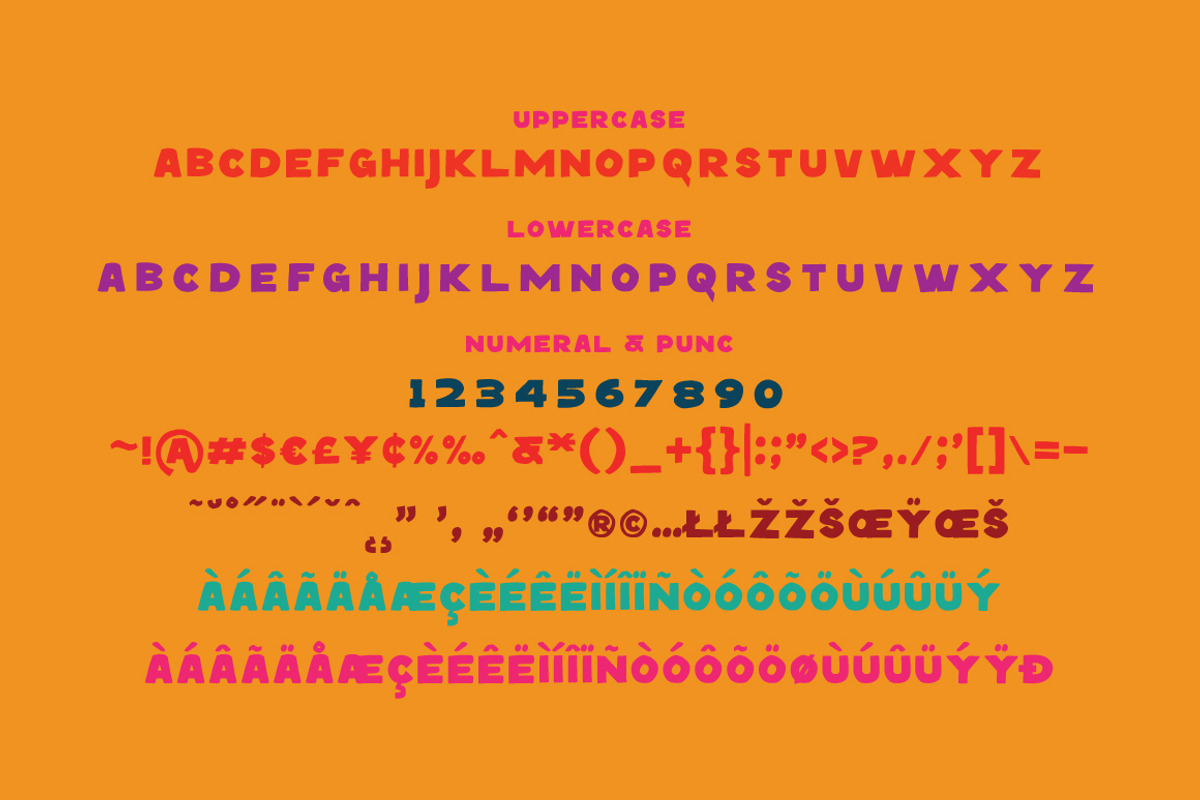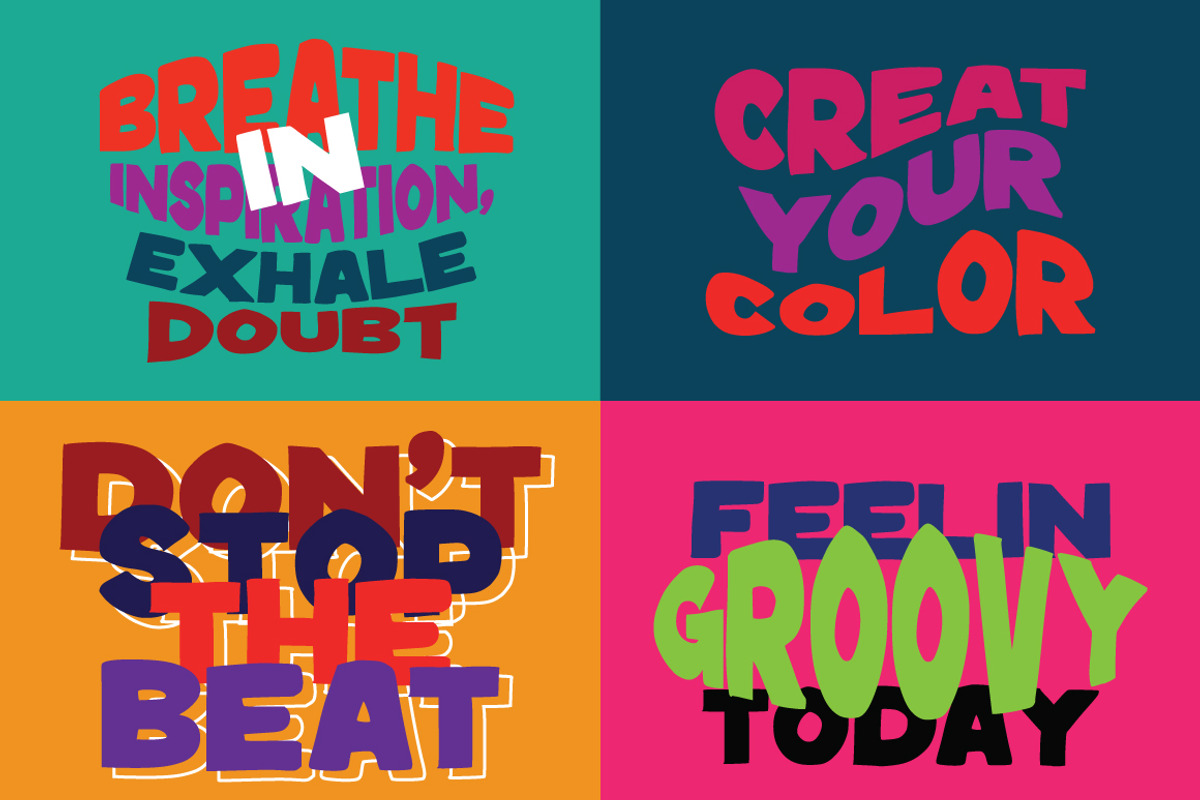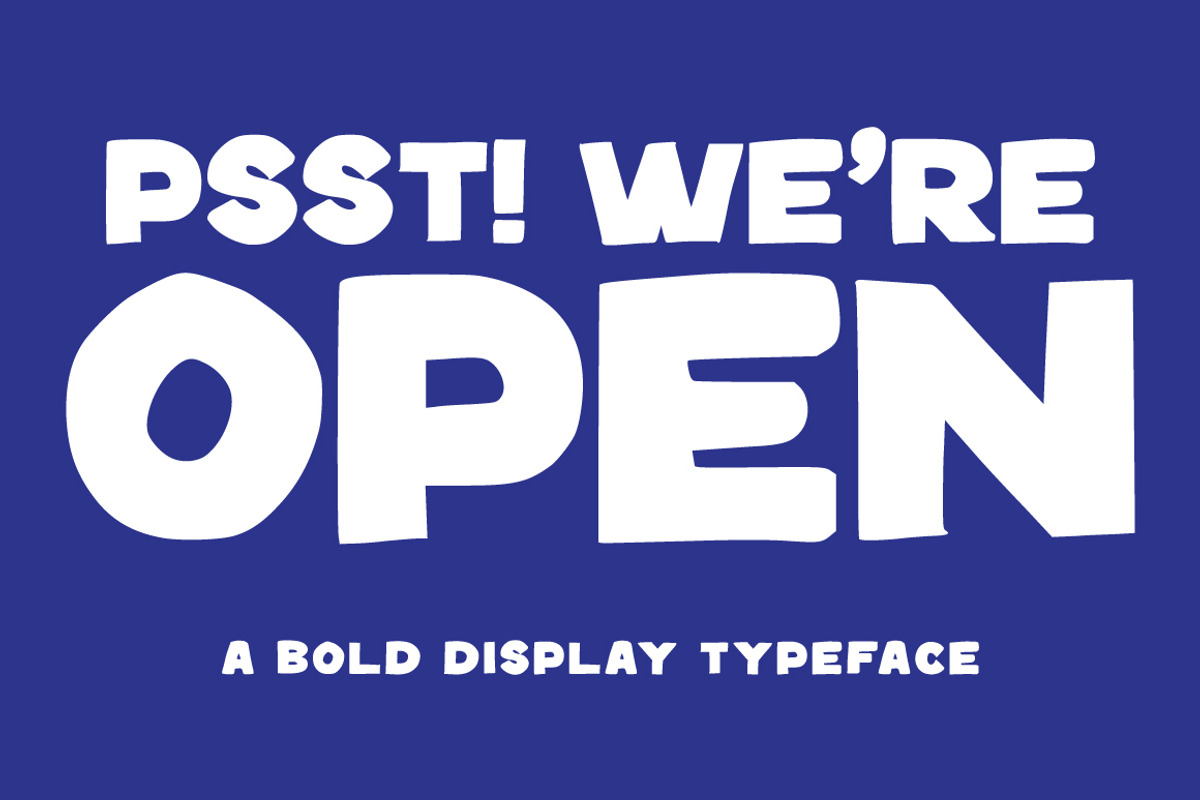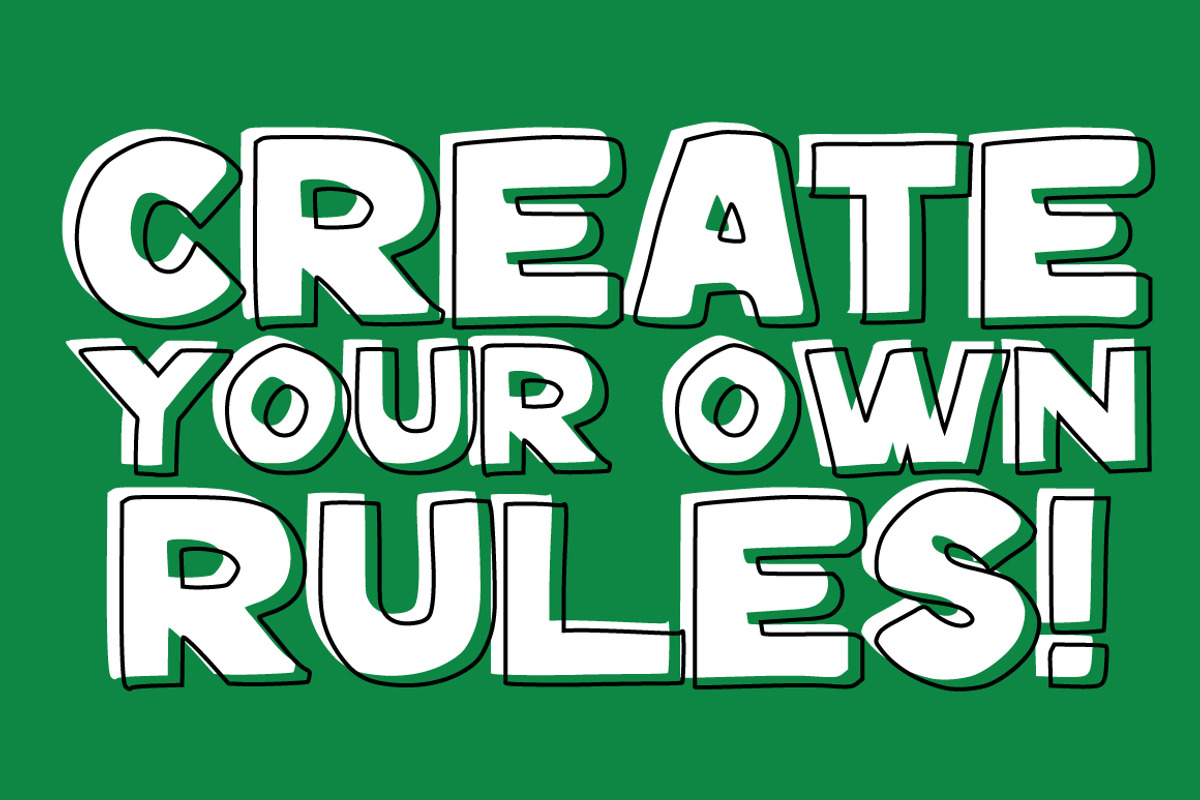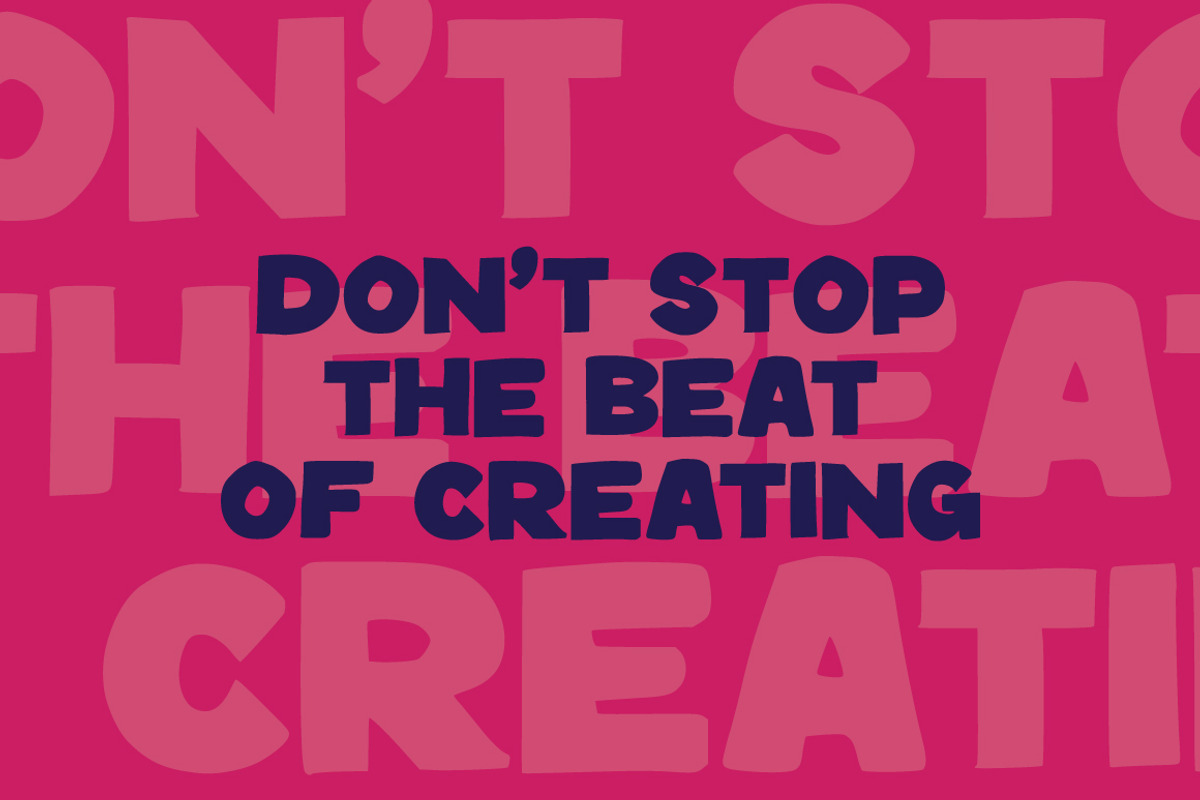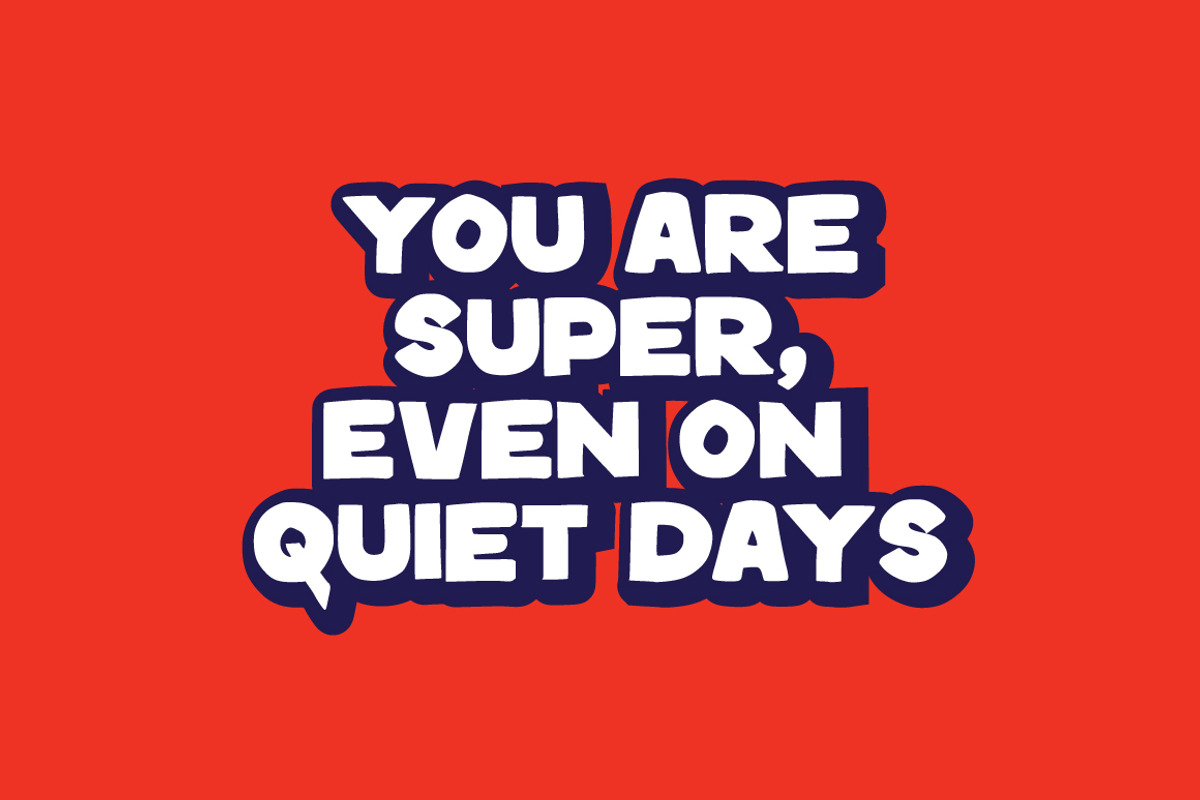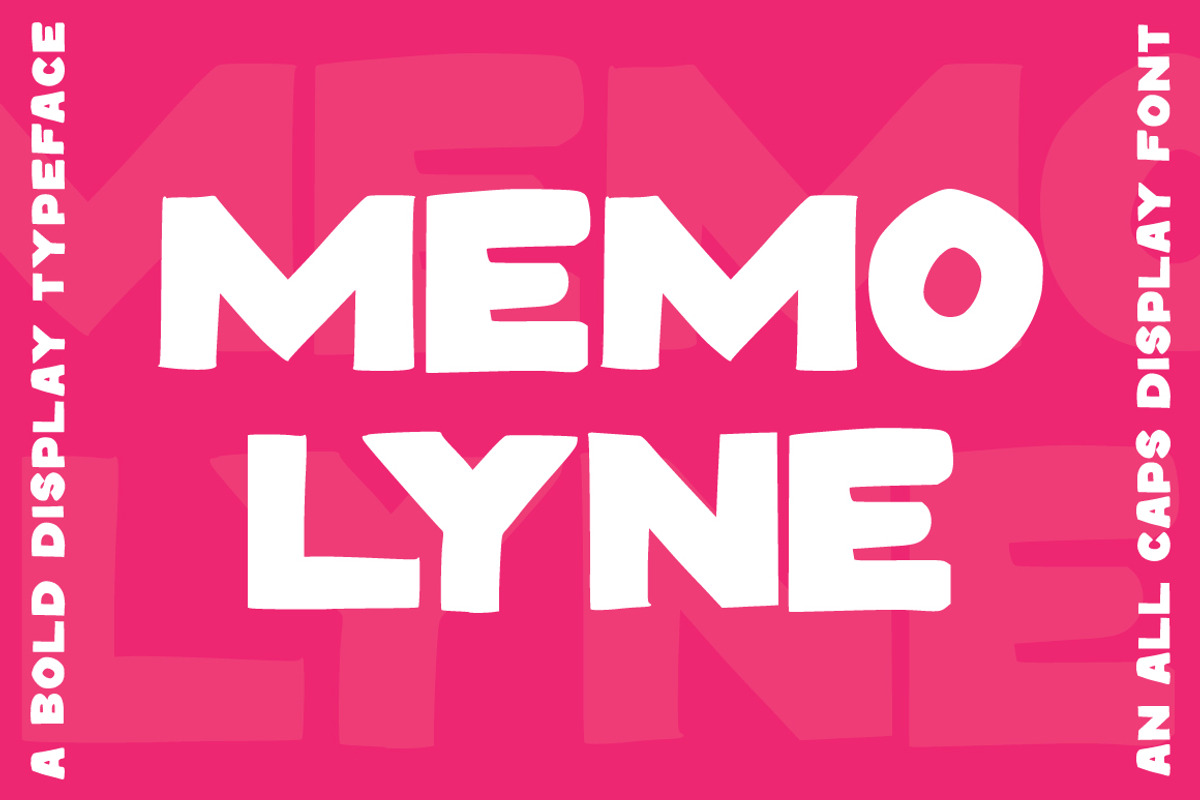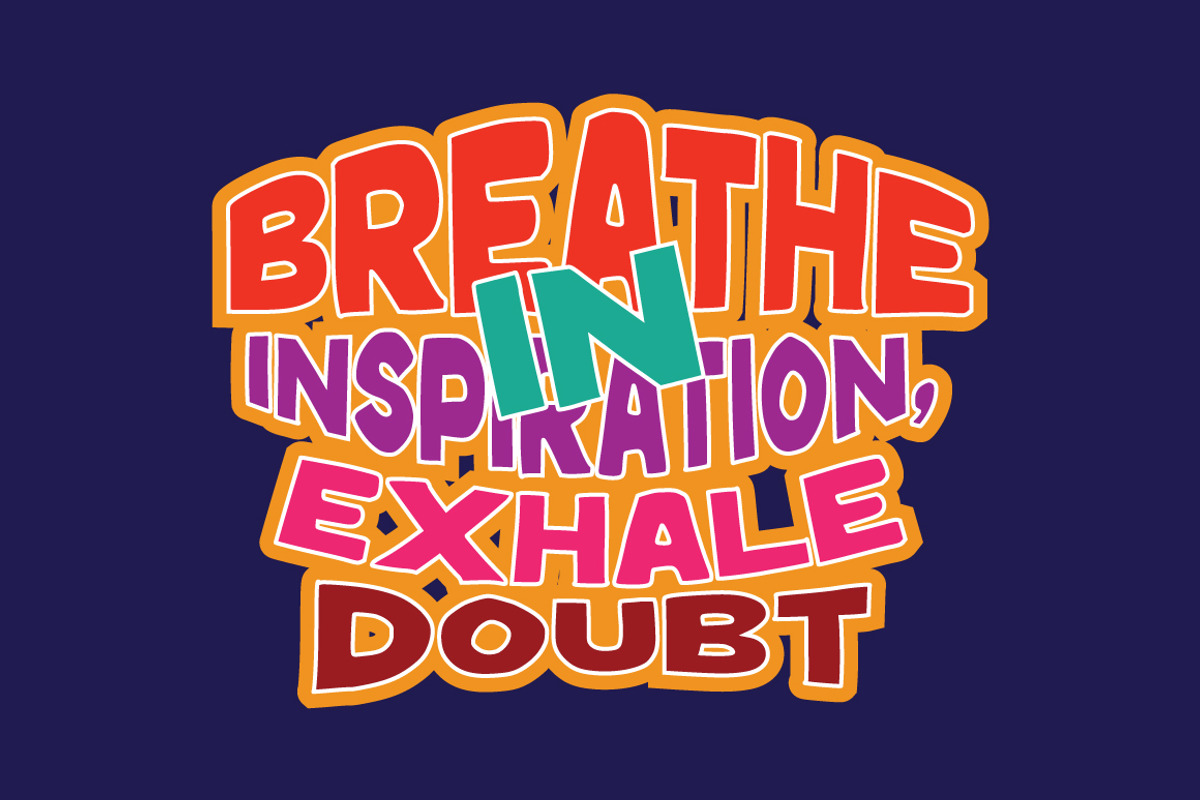
Memolyne - Bold Display
Memolyne – Bold All-Caps Display Font
Make a vibrant impact with Memolyne, a fun, chunky all-caps display typeface designed to demand attention. Featuring soft rounded edges, heavyweight proportions, and a lively, hand-drawn feel, this font adds playful energy and punchy personality to any layout.
Memolyne is tailored for high-energy branding, poster design, merchandise, food packaging, children's products, and catchy social media banners. Its thick letterforms guarantee maximum readability, even from a distance.
Memolyne Display Features :
Uppercase & Lowercase International Languange & Symbols Support Punctuation.
Suitable for:
Logos & Personal Branding
poster design
merchandise
Social Media Content
Photography Watermarks
Quotes & Editorial Design
food packaging & children's products
Memolyne Display was created for designers, business owners, and creators who want to create a classy and memorable visual identity.